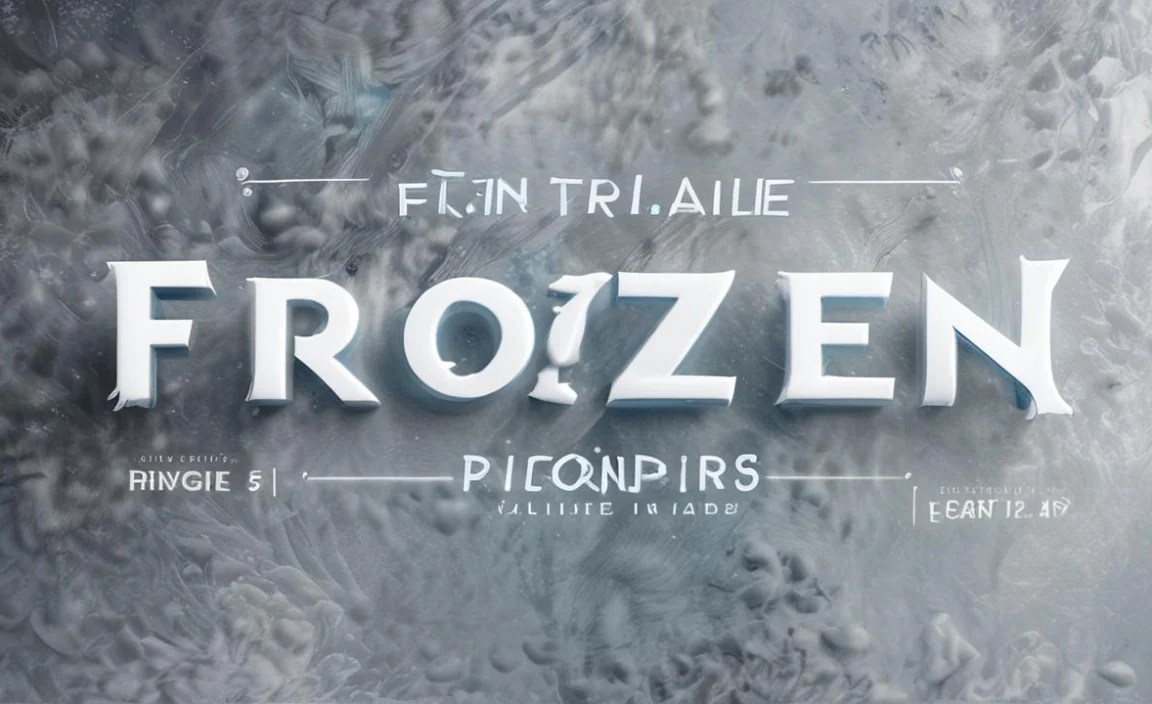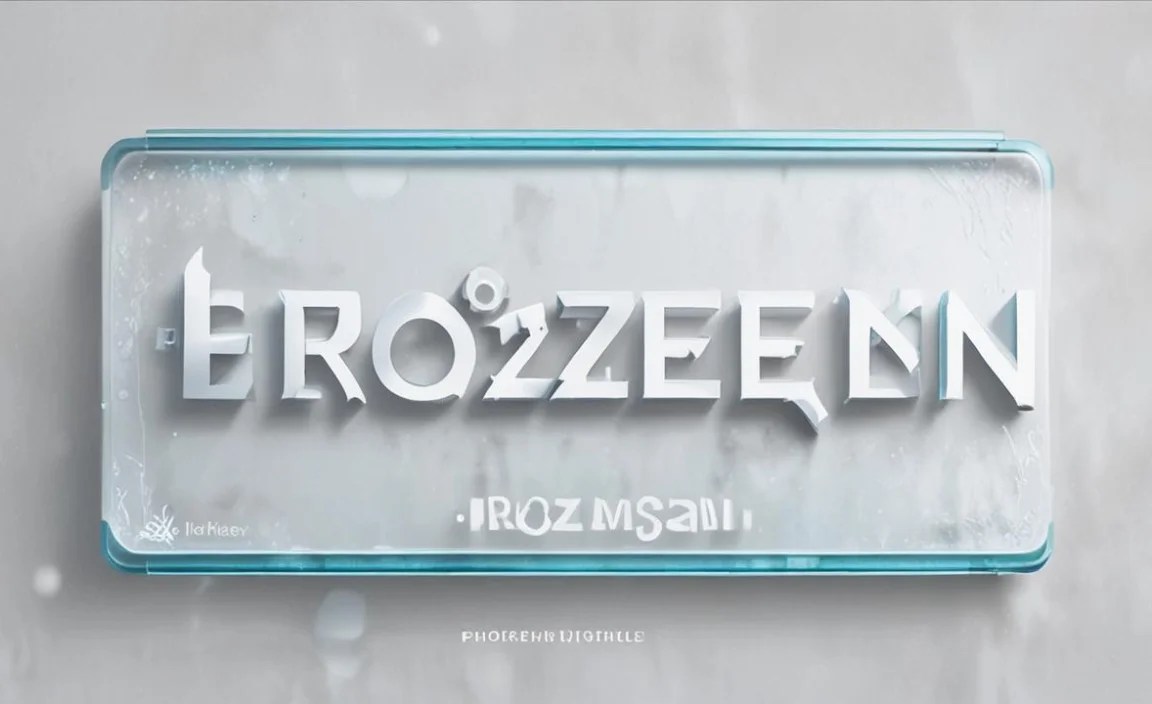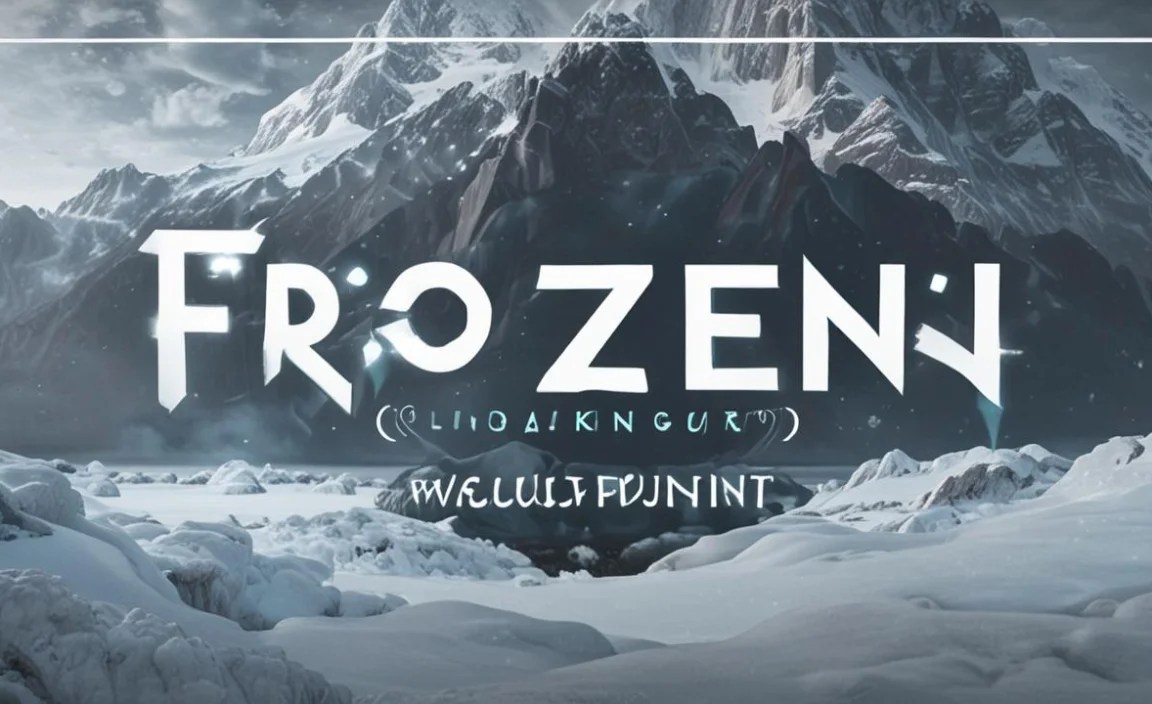
The Frozen Font, inspired by the 2013 animated film Frozen, captures the magical and frosty essence of the movie. While the film’s official logo uses custom lettering, the Ice Kingdom font by Kustren closely mimics its style, perfect for fans and designers wanting to evoke a similar wintry feel.
Frozen Font Information
| Name | Frozen Font (Ice Kingdom) |
| Style | Display |
| Designer | Kustren |
| Type | Display Typeface |
Frozen Font Family Includes
- Ice Kingdom Regular
- Ice Kingdom
- Ice Kingdom Bold
- Ice Kingdom Regular
- Ice Kingdom Light
- Ice Kingdom Italic
Where Frozen Font Is In Use
The Frozen Font is ideal for designs that require a magical and icy touch. The Frozen font, inspired by the popular Disney film “Frozen,” has gained significant popularity due to its association with the movie’s magical and whimsical theme. It is widely used in various contexts such as:
- Movie Posters
- T-shirts and dresses
- Fancy Arts
- Themed Invitations
- Children’s Book Covers
- Winter-themed Designs
- Merchandise
- Party Decorations
1. What Is The Best Way To Pair The Frozen Font With Other Fonts?
Pair it with clean, sans-serif fonts like “Montserrat” or “Raleway” to balance its ornate style and enhance readability.
2. What Are The Limitations Of The Frozen Font In Web Design?
Limited to uppercase letters and may not support extensive character sets or special symbols, affecting versatility.
3. What Is The Closest Font To A Frozen Font?
The closest font to the Frozen font is often considered “Frozen” itself, as it is specifically designed to match the movie’s style. Other similar fonts include “Ice Kingdom” and “Frozito,” which also capture the whimsical and icy theme of the “Frozen” franchise.
4. What Is The Mood Or Tone Of The Frozen Font?
The Frozen font evokes a magical, icy, and whimsical tone, fitting for wintry and fantasy themes.
5. What Are The Different Weights Available For The Frozen Font?
Ice Kingdom is available in a single weight.